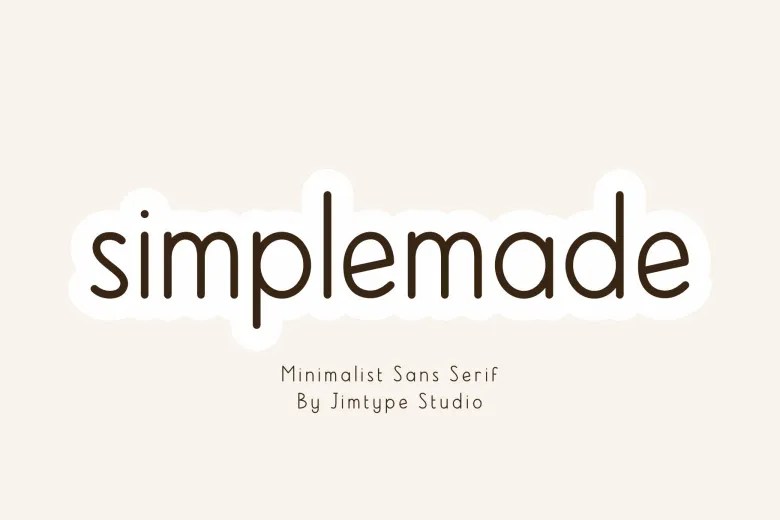
Simplemade Font
Simplemade Font is a monoline sans-serif typeface crafted for those who appreciate clean lines and a farmhouse aesthetic. This font epitomizes simplicity and versatility, making it ideal for various design needs.
Key Features of Simplemade:
• Monoline Design: Features crisp, clean lines that add a touch of elegance and simplicity.
• Farmhouse Aesthetic: Perfect for designs that require a minimalistic and charming style.
• Versatile Use: Ideal for Cricut projects and other applications that benefit from a sleek and straightforward font.